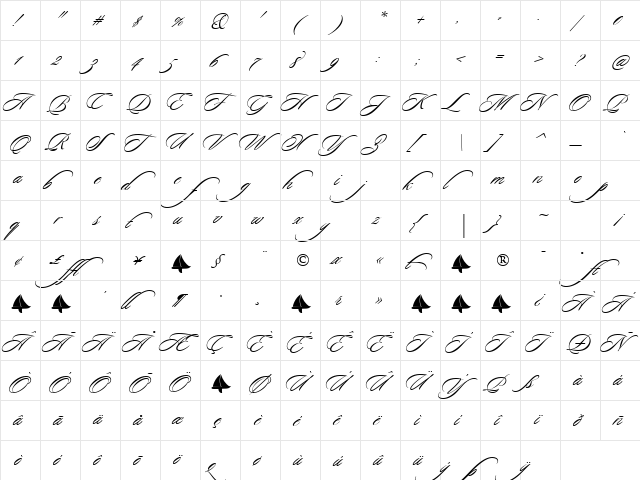
Sloop Script Regular
Design Context for Sloop Script Typeface
Sloop Script flows with the natural rhythm of handwritten lettering, making it ideal for designs that call for warmth and personal expression.
Font Pairing: Combine Sloop Script with a simple geometric sans for maximum contrast — the tension between flowing curves and clean structure is a classic typographic pairing.
Pro Tip: Use Sloop Script for short runs of text — names, titles, or taglines. Extended body copy in script faces tires the eye quickly.